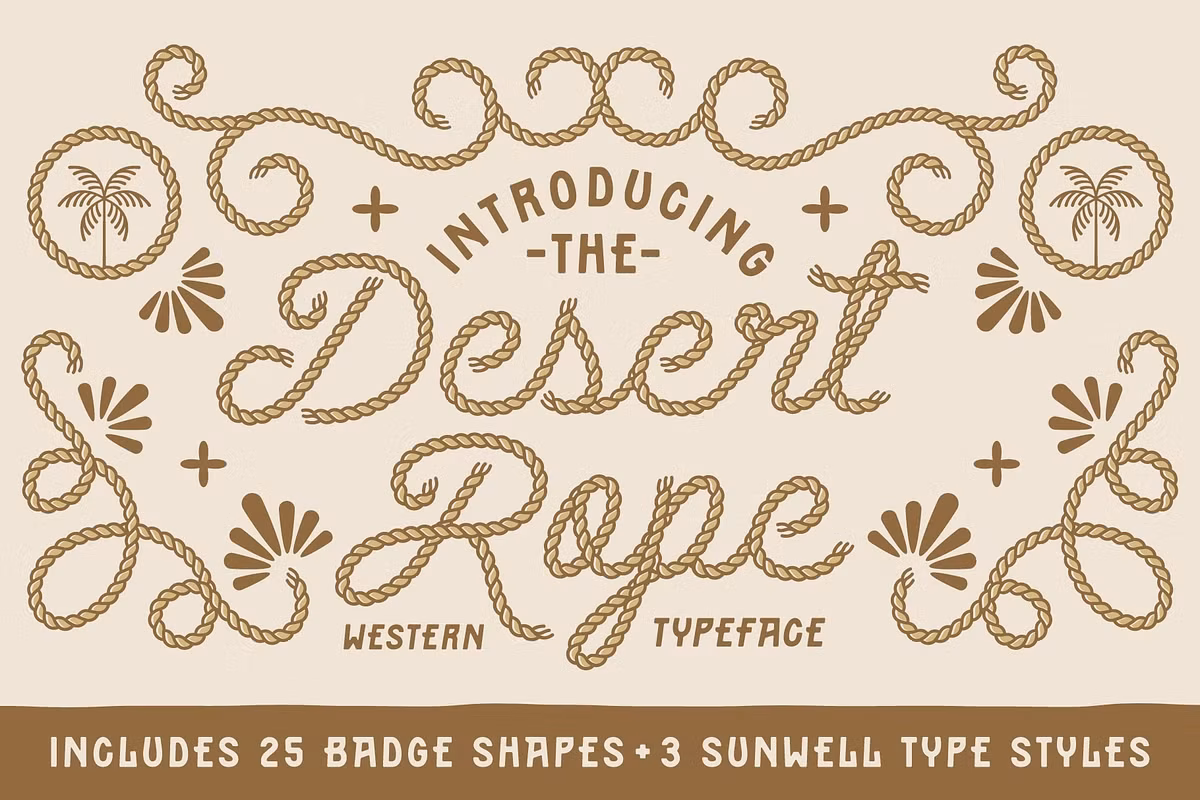
Desert Rope Font Duo Free Download
Desert Rope Font Duo Free Download is a striking and versatile typeface pairing that combines a rugged, handwritten script with a bold, clean sans-serif. This duo is perfect for creating dynamic logos, branding materials, posters, and social media graphics. The script font brings a touch of organic charm and creativity, while the sans-serif provides balance and clarity, making it ideal for modern and rustic designs. Whether you’re working on a boho-themed project, an outdoor brand, or a creative campaign, Desert Rope Font Duo Free Download gives you the flexibility to experiment with both fonts in personal projects before purchasing a commercial license. Add character and creativity to your designs with this beautifully crafted font duo.